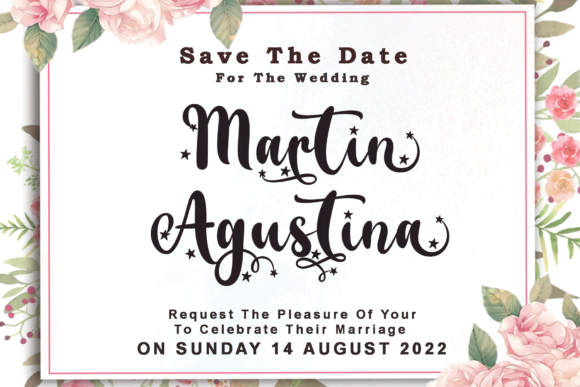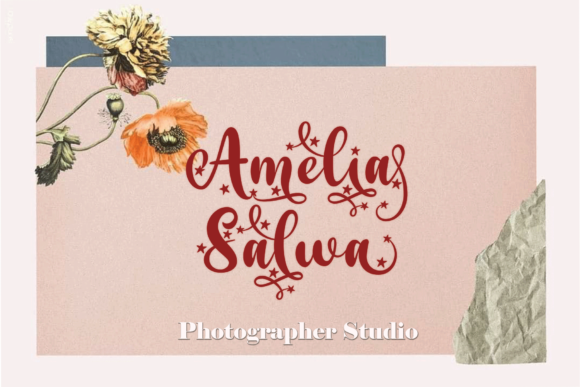
Hello Girl Font
db-ku.com - Script & Handwritten -- Hello Girl feels equally delicate and refined. It looks lovely on wedding invitations, thank you cards, quotes, greeting cards, logos, business cards, and every other design which needs a customized touch. This font is PUA encoded which means you can access all of the glyphs and swashes with ease!